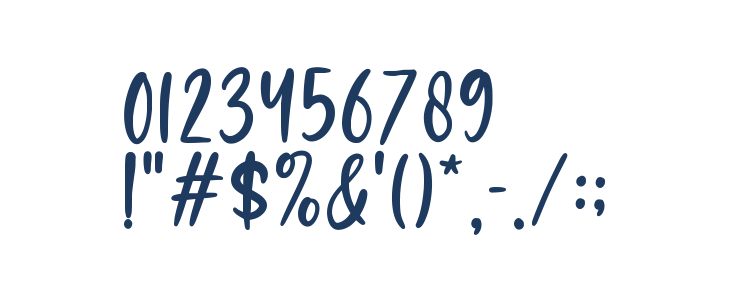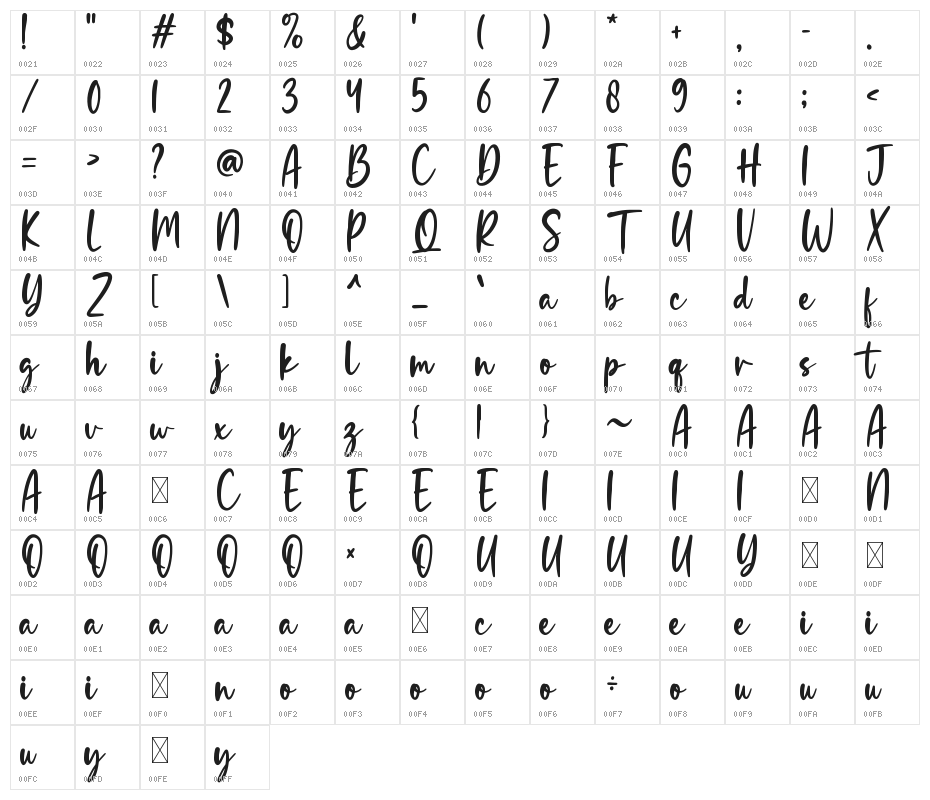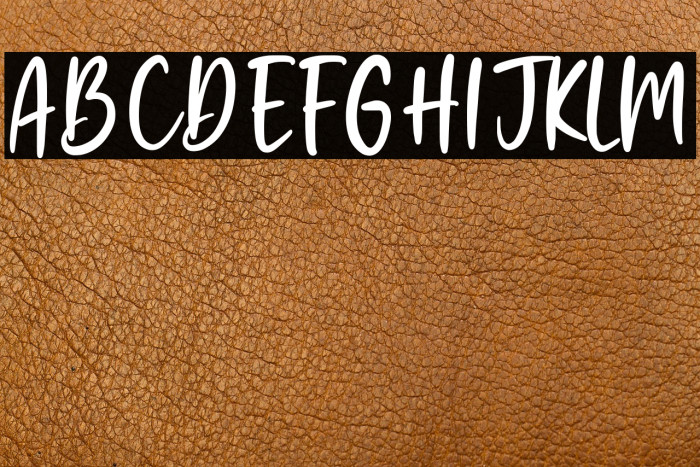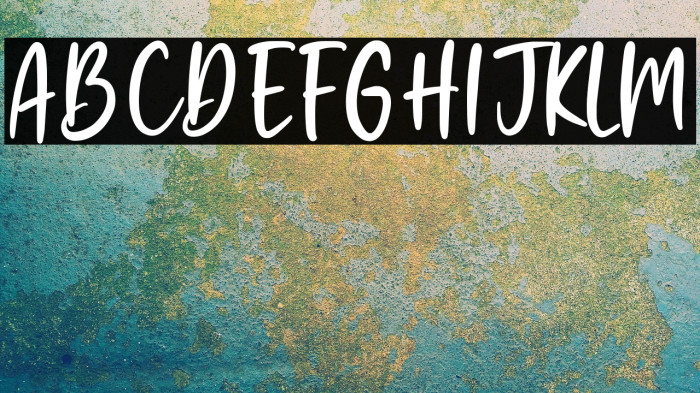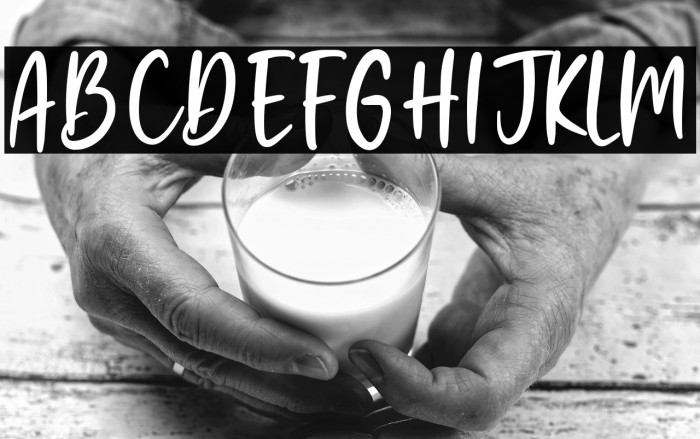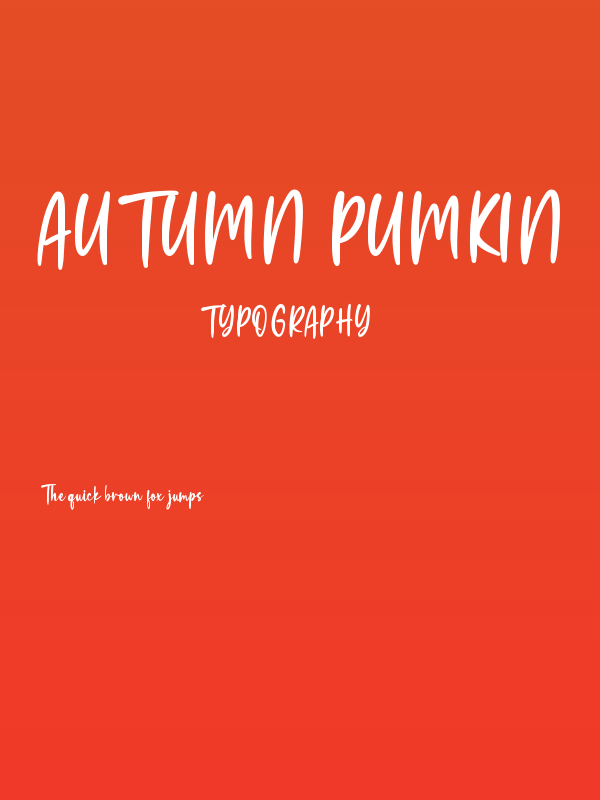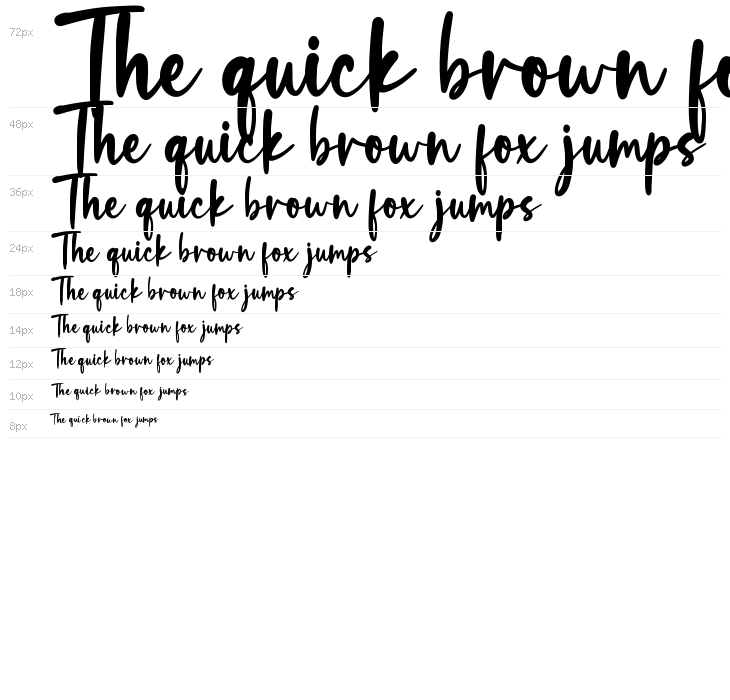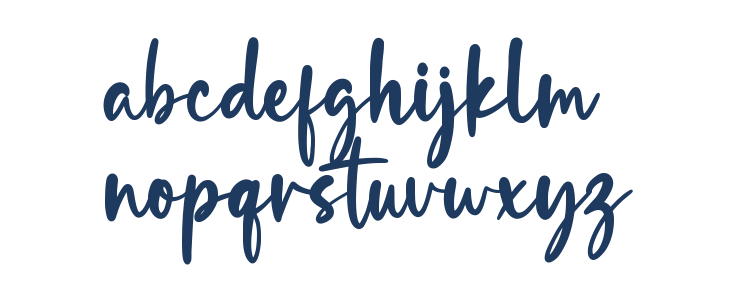
Autumn Pumkin Font
Autumn Pumkin Description
This font features a playful and energetic handwritten style, characterized by its fluid and dynamic strokes. The letters are slightly slanted, giving it a casual and informal appearance. The uppercase and lowercase letters maintain a consistent flow, with rounded edges and varying stroke widths that add a sense of movement and personality. The numbers and special characters are designed to match the lively aesthetic, making it suitable for creative and expressive projects. The overall look is friendly and approachable, perfect for adding a personal touch to any design.
| Proposed Projects | Ideal for greeting cards, invitations, social media graphics, and branding projects that require a personal and lively touch. |